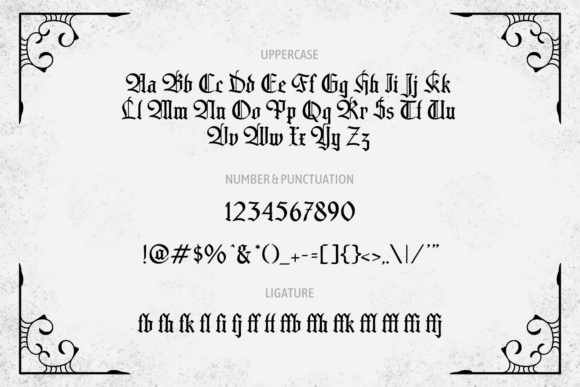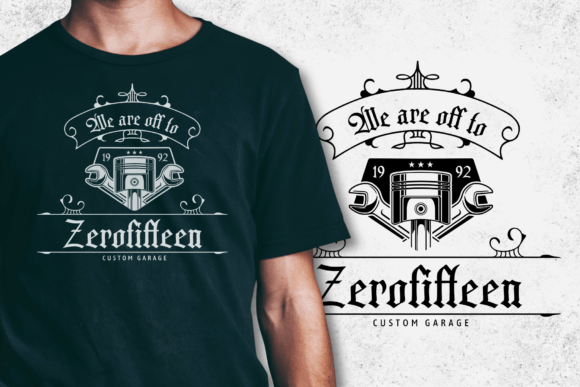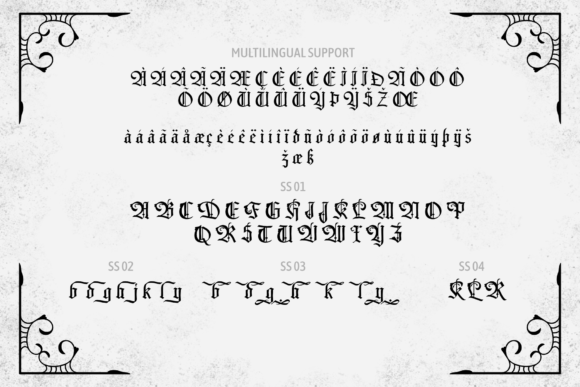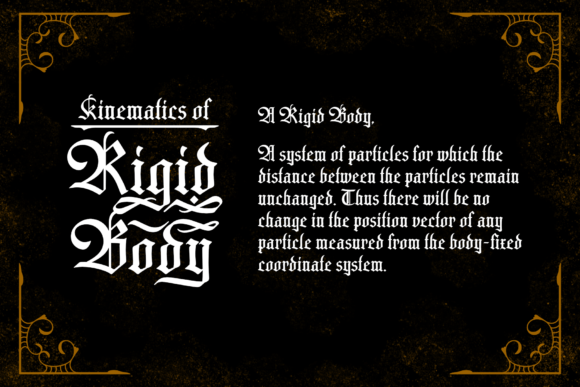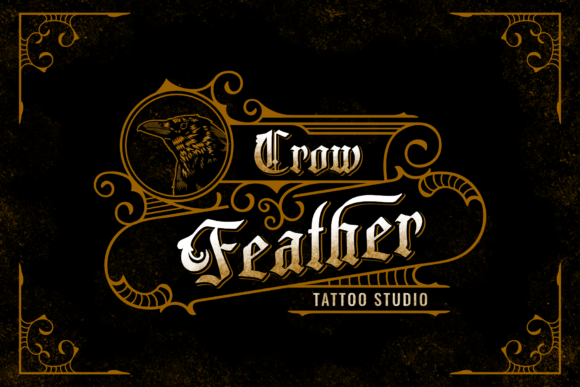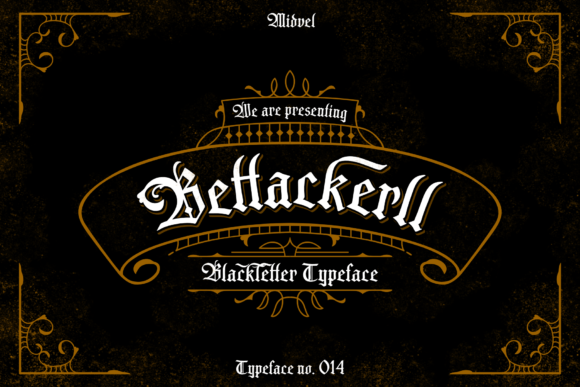
Bettackerll Font: Elevate Your Designs with Elegant Gothic Style
Are you searching for a font that exudes elegance and sophistication? Look no further than the Bettackerll font, a stunning Gothic-style display font that is sure to elevate your designs to new heights. With its refined and luxurious aesthetic, this typeface is perfect for designers and crafters looking to add a touch of style and refinement to their projects.
What is Bettackerll Font?
Bettackerll is a beautifully crafted font that boasts an elegant, Gothic-style design. Its intricate details and ornate features make it a standout typeface that is sure to capture attention. Whether you’re working on a branding project, a wedding invitation, or a packaging design, Bettackerll font is the perfect choice for adding a touch of sophistication and glamour.
Key Features of Bettackerll Font
So, what sets Bettackerll font apart from other typefaces? Here are some of its key features:
- Elegant Gothic-style design: Bettackerll font features a stunning Gothic-style design that exudes elegance and sophistication.
- Display font: Bettackerll is a display font, making it perfect for headlines, titles, and other design elements that require a touch of elegance.
- Refined and luxurious aesthetic: This font boasts a refined and luxurious aesthetic that is sure to elevate your designs.
Benefits of Using Bettackerll Font
So, why should you choose Bettackerll font for your next design project? Here are some of the benefits of using this stunning typeface:
- Adds elegance and sophistication: Bettackerll font adds a touch of elegance and sophistication to any design project.
- Perfect for luxury brands: This font is perfect for luxury brands, high-end products, and premium services.
- Versatile: Bettackerll font can be used for a variety of design projects, from branding and advertising to packaging and wedding invitations.
How to Use Bettackerll Font
Using Bettackerll font is easy! Here are some tips to get you started:
- Pair it with a simple font: Pair Bettackerll font with a simple font to create a striking contrast.
- Use it for headlines and titles: This font is perfect for headlines and titles, where you want to make a statement.
- Experiment with different colors: Try experimenting with different colors to find the perfect combination that suits your design.